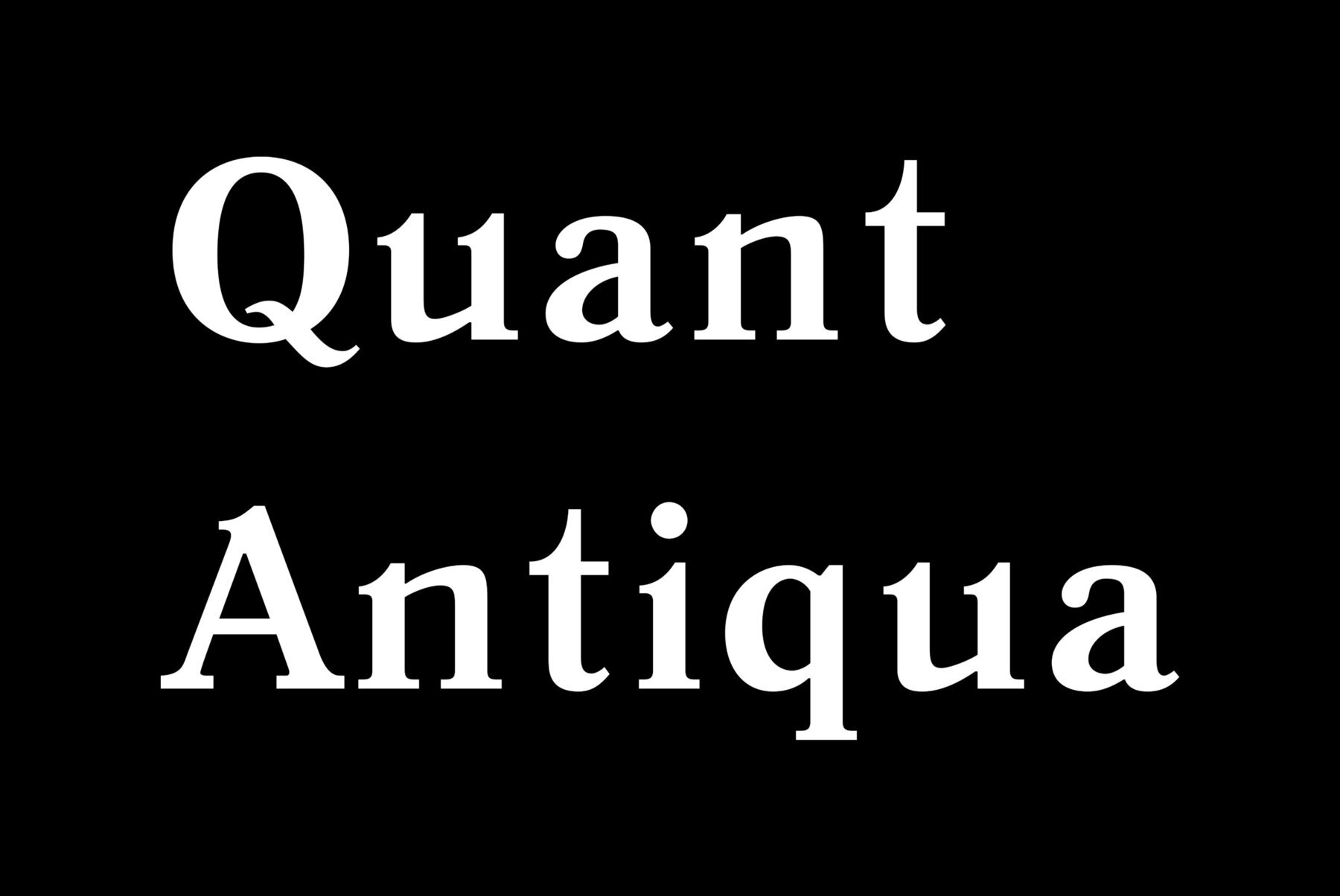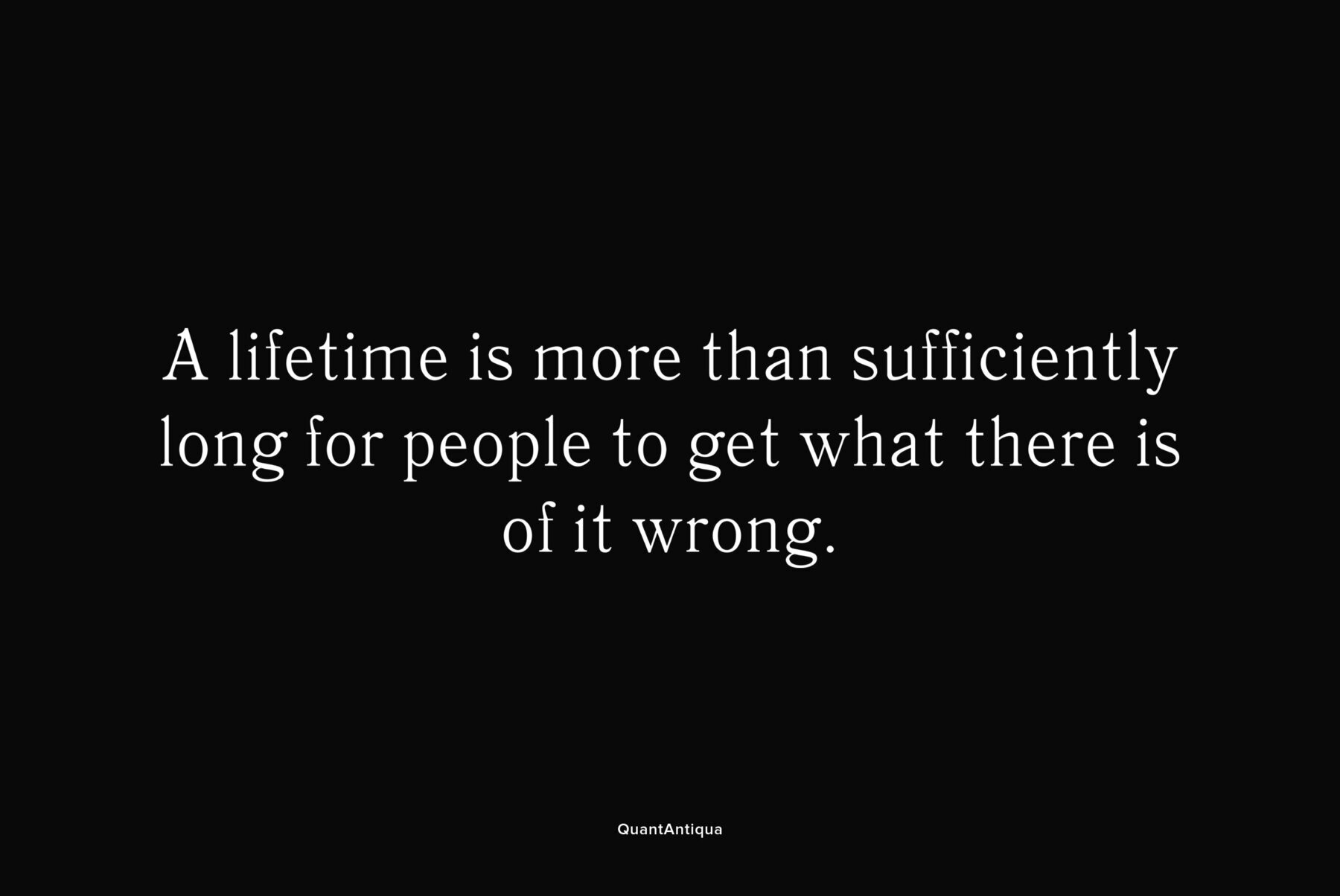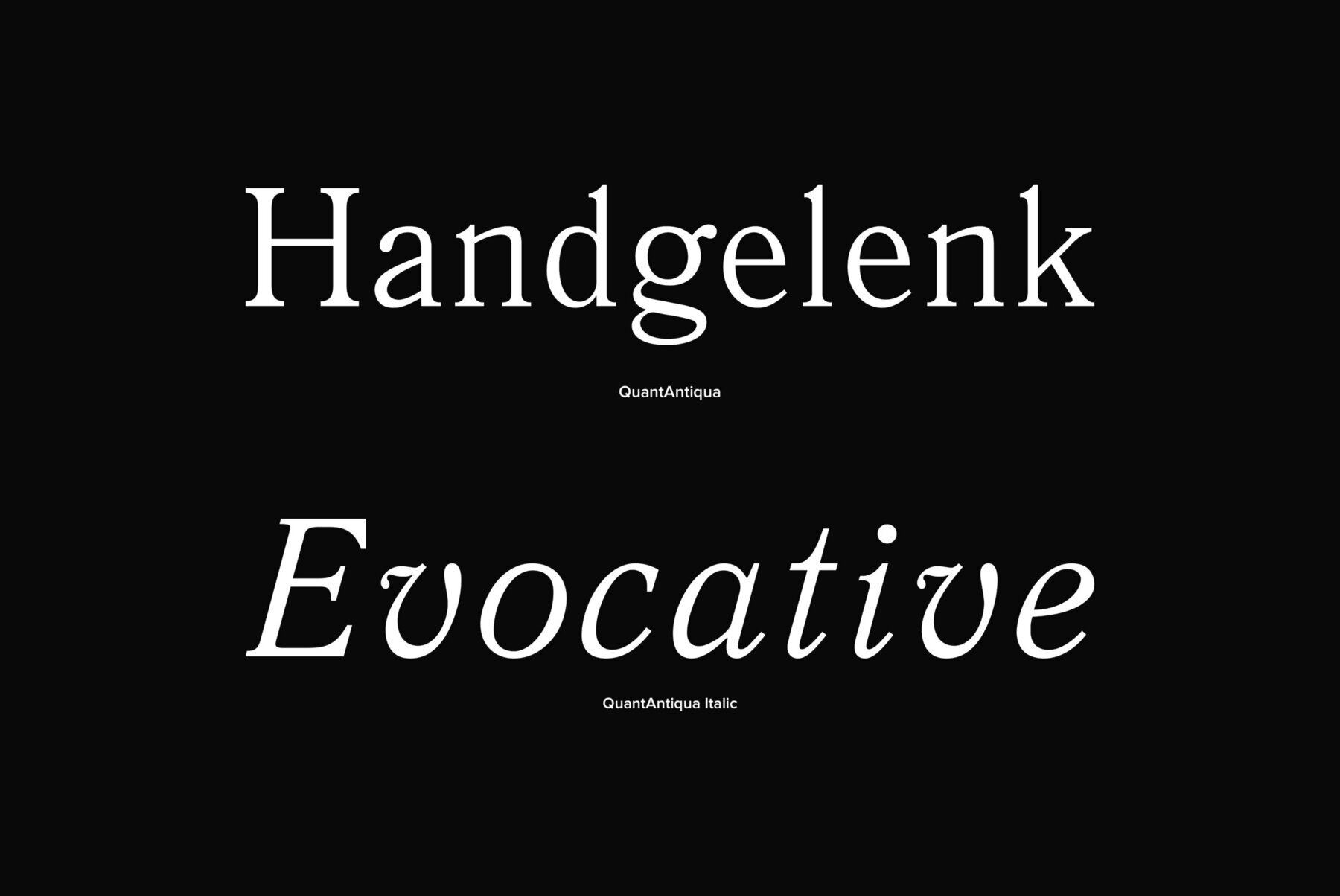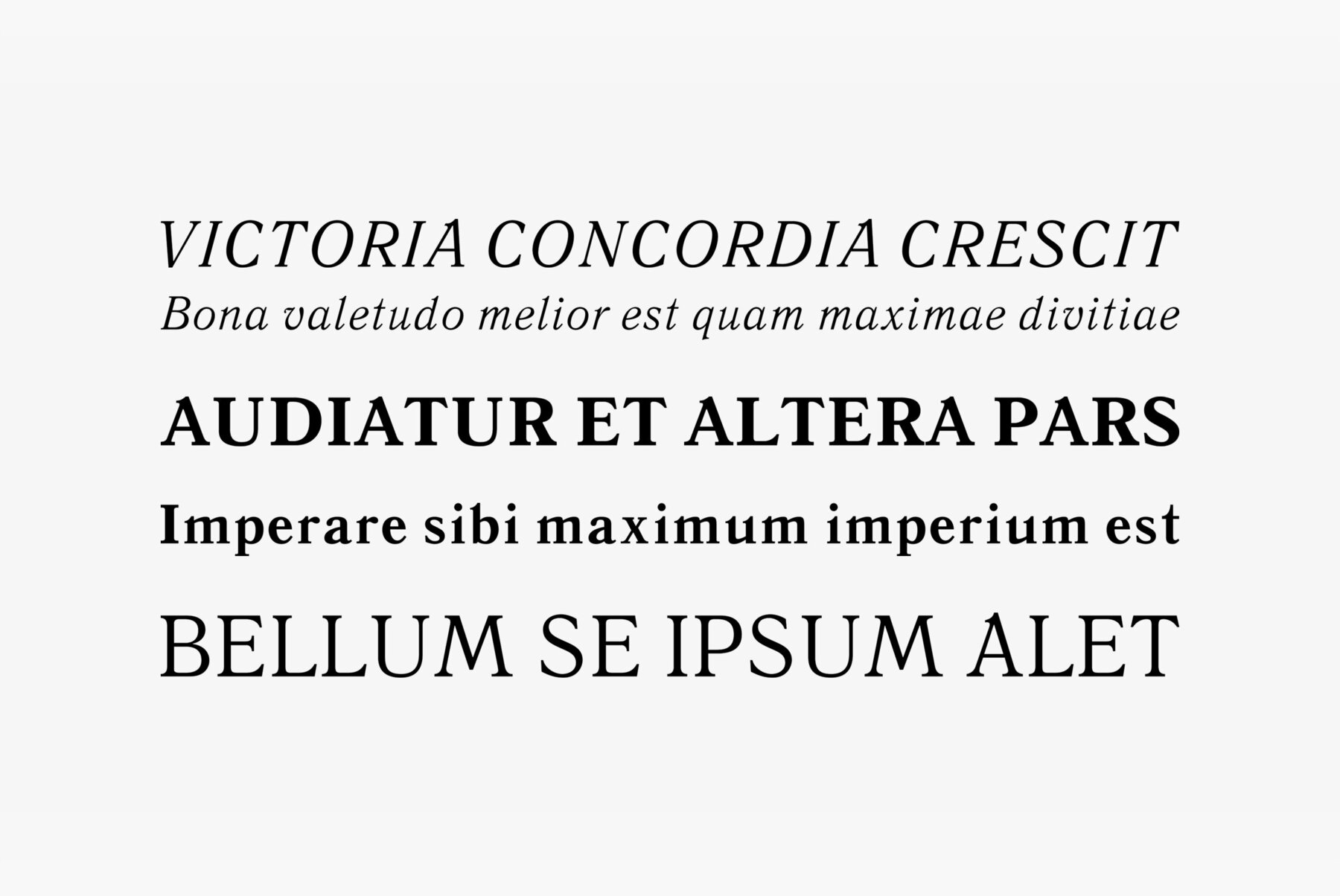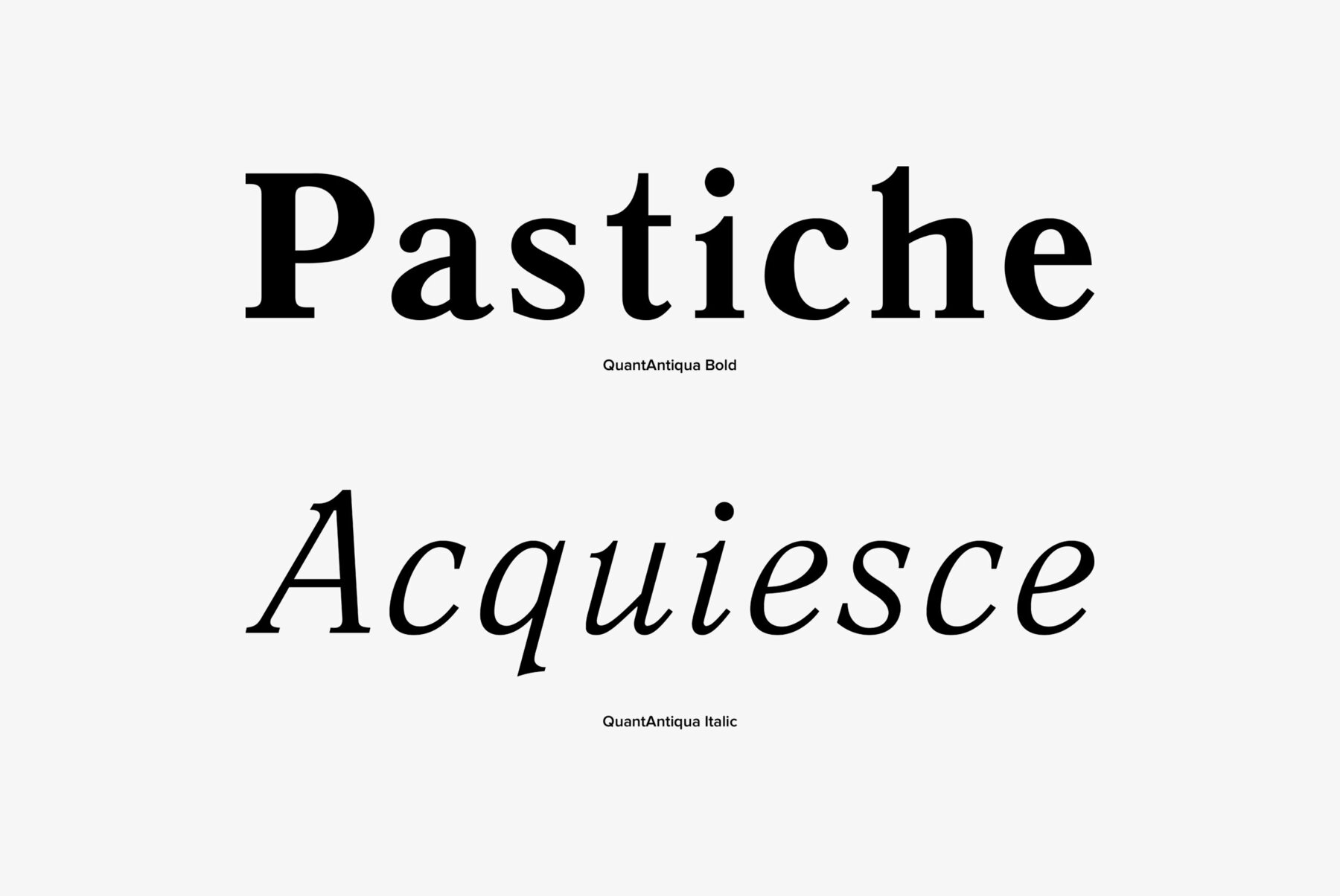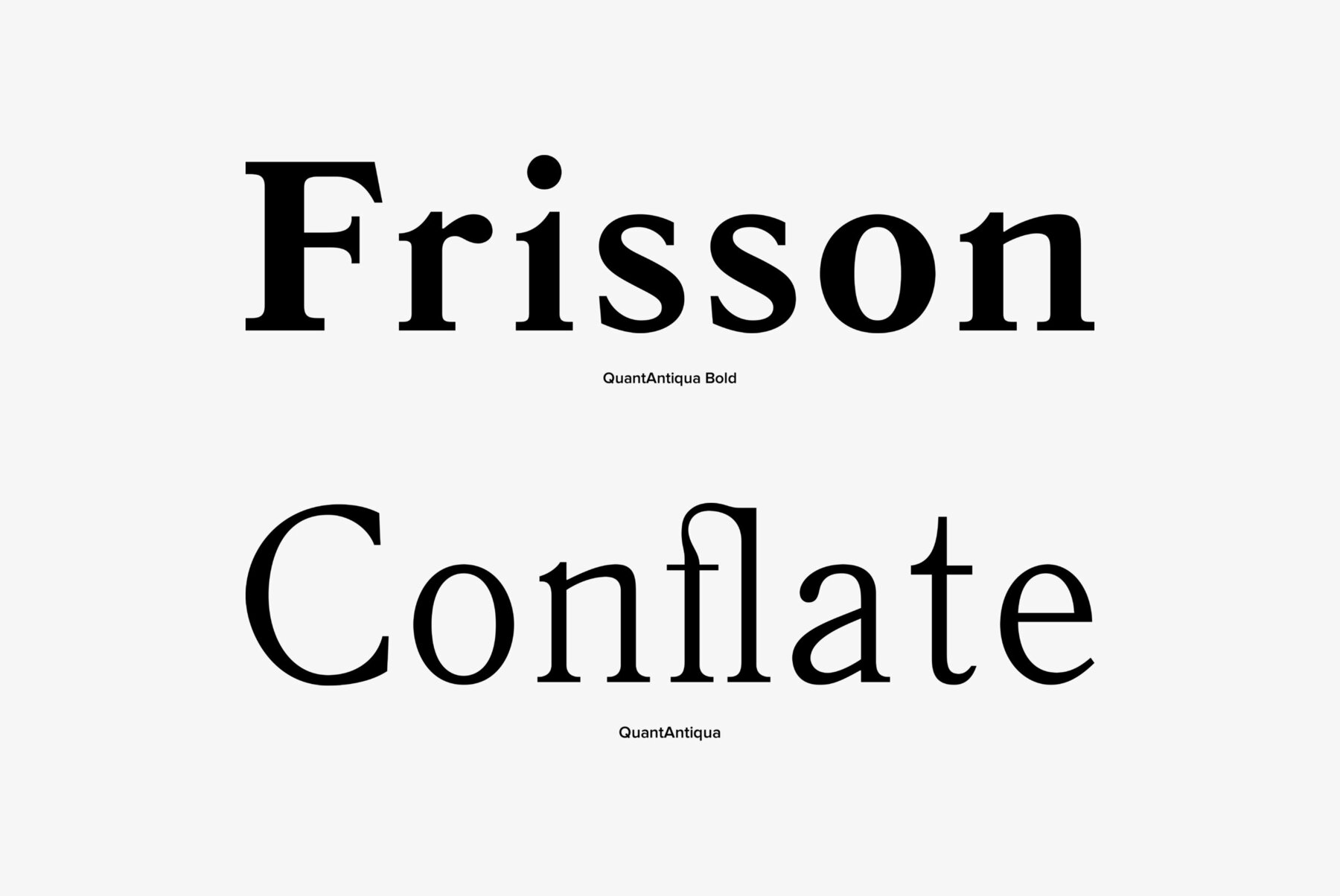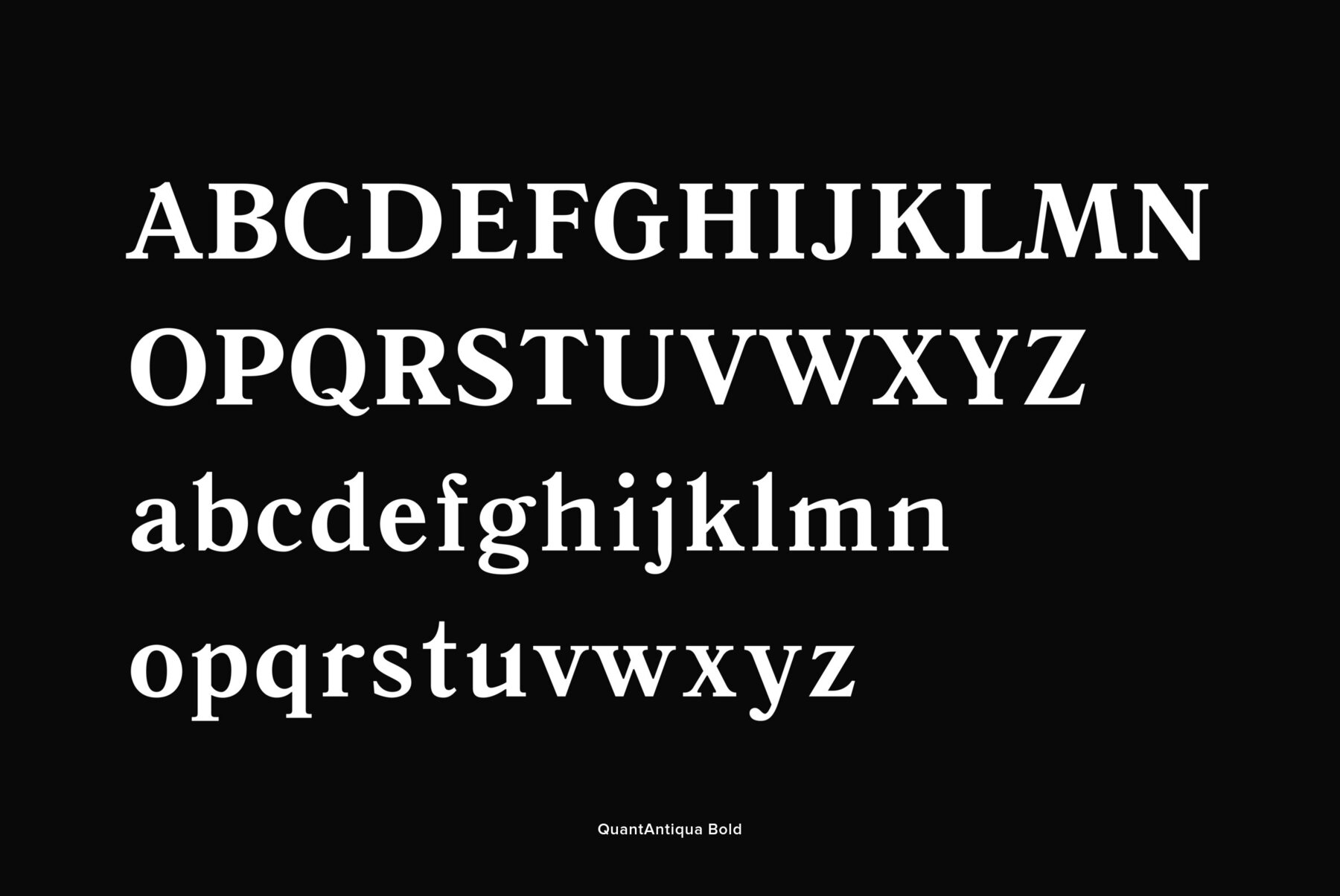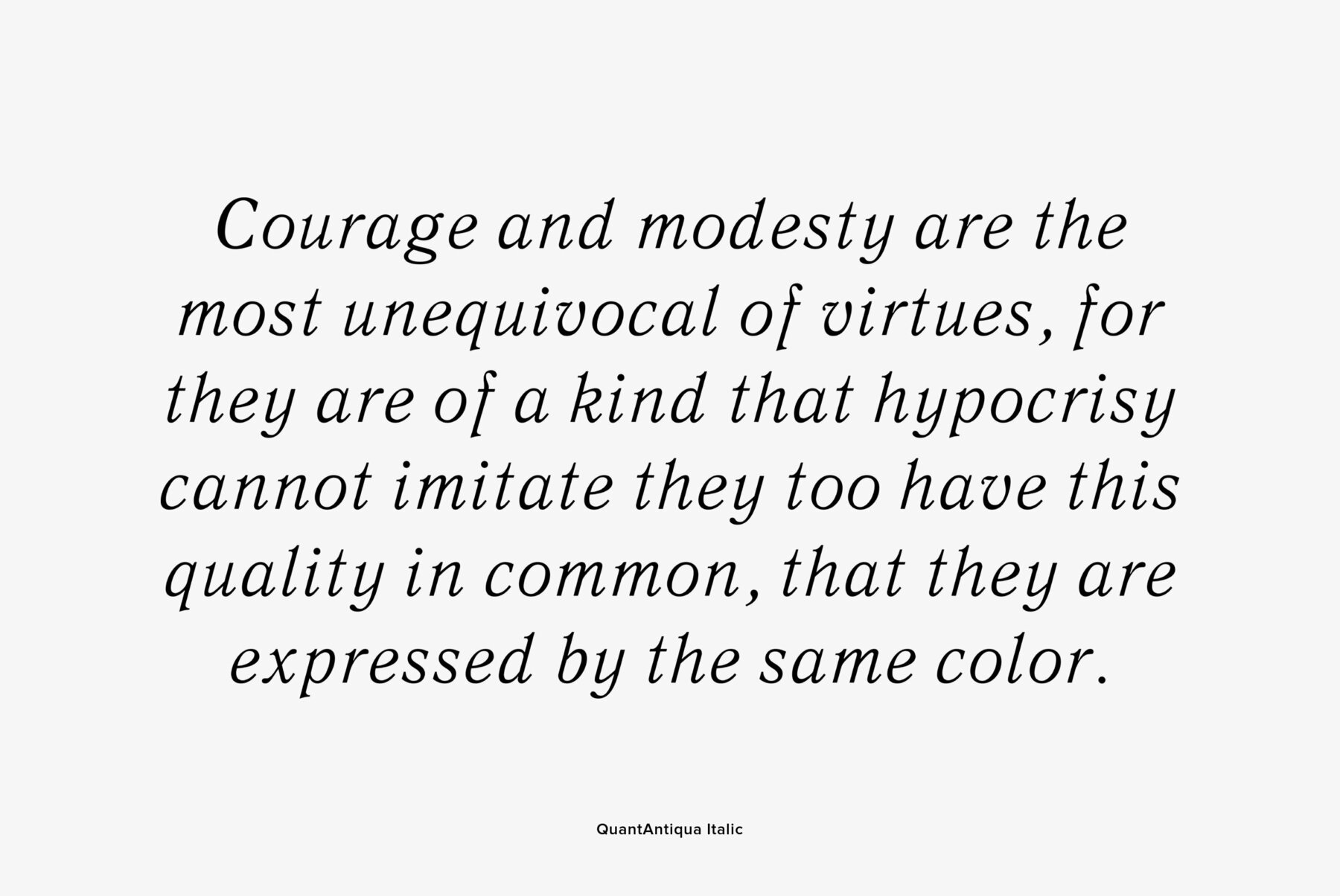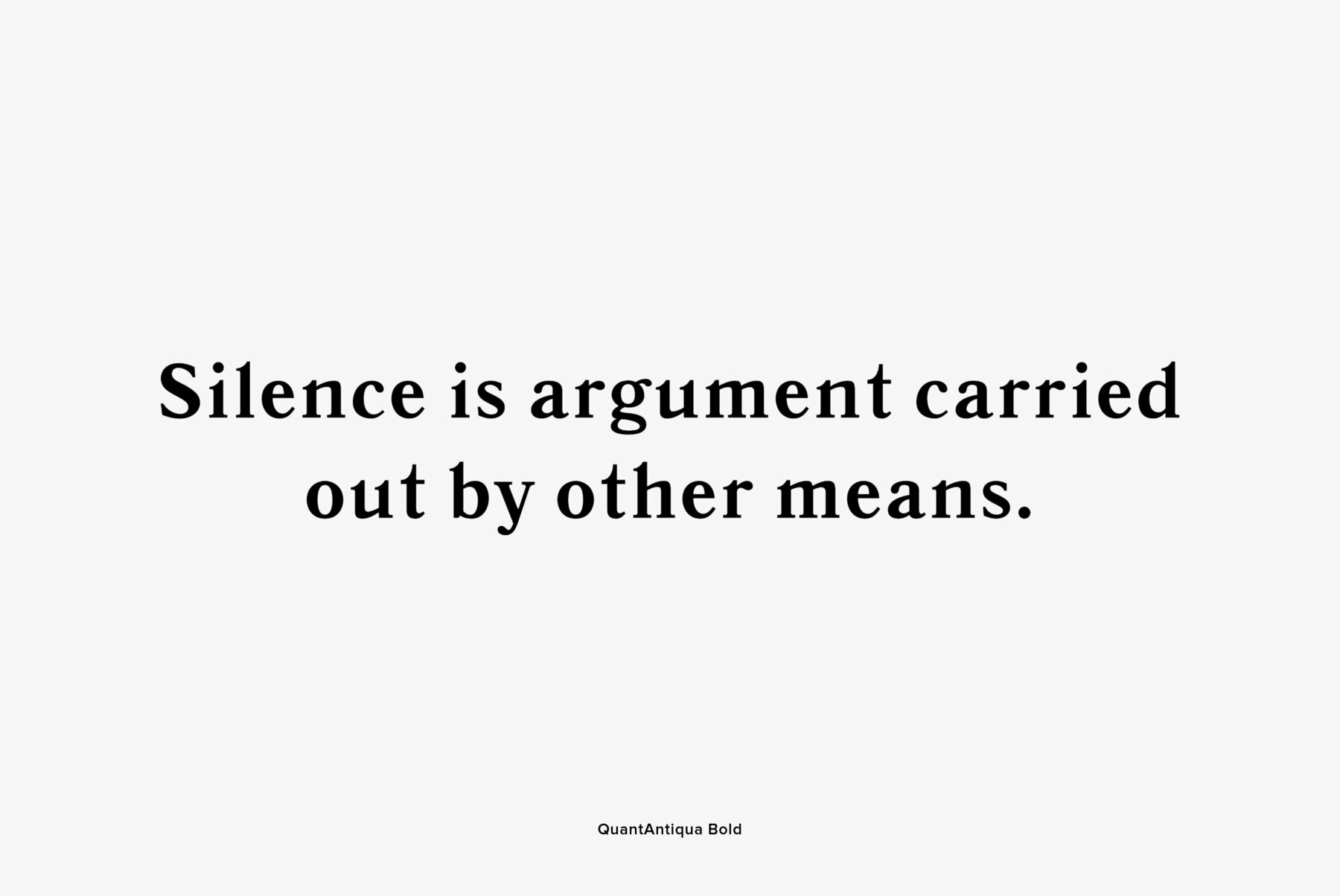
Quant Antiqua Quant Antiqua
The typeface was designed at the Polygraphmash type design bureau in 1989 by Lyubov Kuznetsova. Based on the typeface Literanutnaya (Latinskaya) of the Berthold typefoundry (St.-Petersburg, 1901), a version of Lateinisch typeface of H. Berthold (Berlin, 1899). For use in text matter.